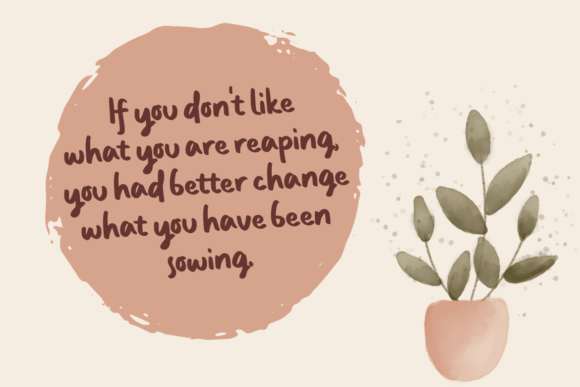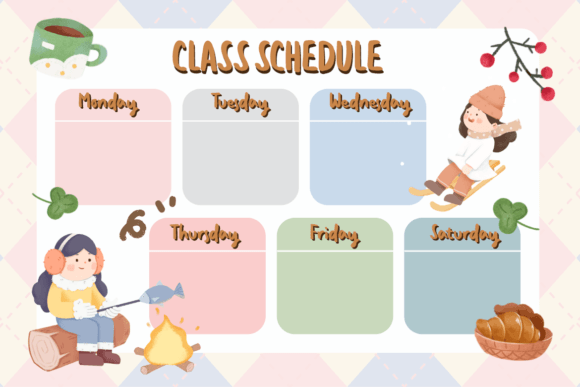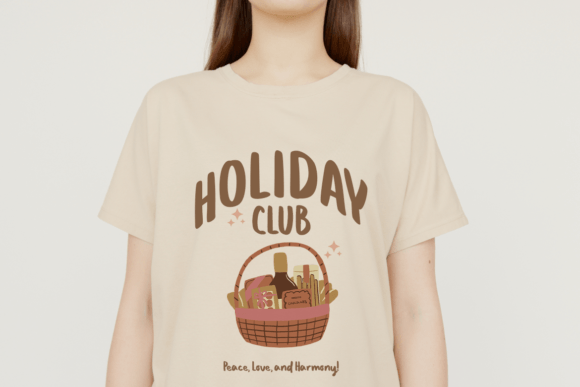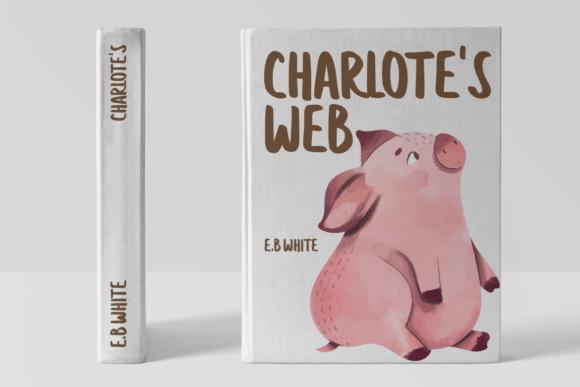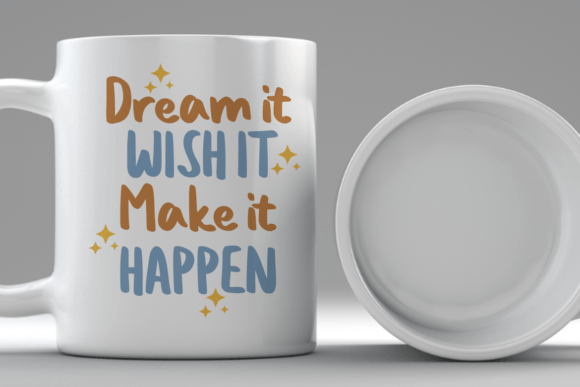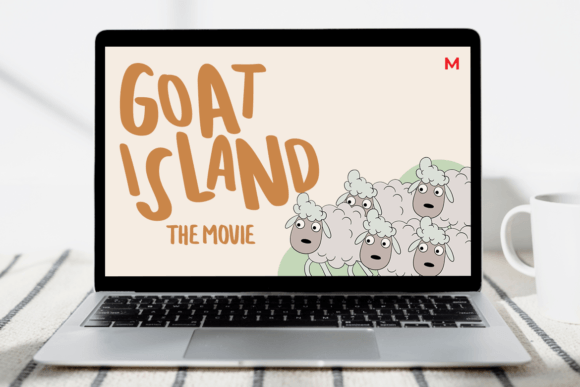
Introducing Big Harvest Font: Elevate Your Designs with a Touch of Elegance
Are you on the hunt for a font that can add a dash of sophistication and playfulness to your creative projects? Look no further than Big Harvest Font, a versatile and stylish handwritten script font that’s perfect for a wide range of applications. From greeting cards to headlines, and beyond, Big Harvest Font is the perfect addition to any designer’s toolkit.
The Characteristics of Big Harvest Font
So, what makes Big Harvest Font so special? For starters, its handwritten script style gives it a personal and approachable feel that’s hard to find with more traditional fonts. The letters are carefully crafted to have a sense of movement and fluidity, making it perfect for designs that require a touch of elegance and sophistication.
But Big Harvest Font isn’t just beautiful – it’s also incredibly versatile. Whether you’re working on a greeting card, a headline, or a full-scale branding project, this font can adapt to any style or tone. Its clean and exquisite feel makes it perfect for designs that require a level of sophistication, while its playful undertones keep things fresh and fun.
What Can You Use Big Harvest Font For?
The possibilities are endless when it comes to Big Harvest Font! Here are just a few ideas to get you started:
- Greeting Cards: Add a personal touch to your greeting cards with Big Harvest Font. Whether it’s a birthday, wedding, or holiday card, this font is sure to make your message stand out.
- Headlines: Make your headlines pop with Big Harvest Font. Its stylish and attention-grabbing design makes it perfect for titles, headings, and other prominent text.
- Branding: Use Big Harvest Font to create a cohesive brand identity that’s both elegant and playful. From logos to packaging, this font can help you establish a consistent visual style.
- Signage: Big Harvest Font is also perfect for signage, whether it’s for a business, event, or exhibition. Its clear and legible design makes it easy to read from a distance.
Why Choose Big Harvest Font?
So, why should you choose Big Harvest Font over other fonts on the market? Here are just a few reasons:
- Unique Style: Big Harvest Font has a unique and distinctive style that’s sure to set your designs apart from the crowd.
- High-Quality Design: This font is carefully crafted with attention to detail, ensuring a high-quality design that’s both elegant and legible.
- Versatile: As mentioned earlier, Big Harvest Font is incredibly versatile, making it perfect for a wide range of applications and projects.
Tips for Using Big Harvest Font
Here are a few tips to help you get the most out of Big Harvest Font:
- Experiment with Sizes: Big Harvest Font looks great in a variety of sizes, so don’t be afraid to experiment and find the perfect size for your design.
- Pair it with Other Fonts: Big Harvest Font pairs well with a range of other fonts, so try combining it with different styles to create a unique visual effect.
- Use it for Headlines and Titles: Big Harvest Font is perfect for headlines and titles, so use it to add a touch of elegance and sophistication to your designs.
In conclusion, Big Harvest Font is a versatile, stylish, and playful handwritten script font that’s perfect for a wide range of applications. Its clean and exquisite feel makes it perfect for designs that require a level of sophistication, while its playful undertones keep things fresh and fun. Whether you’re a designer, crafter, or simply someone who loves to create, Big Harvest Font is a must-have addition to your toolkit.